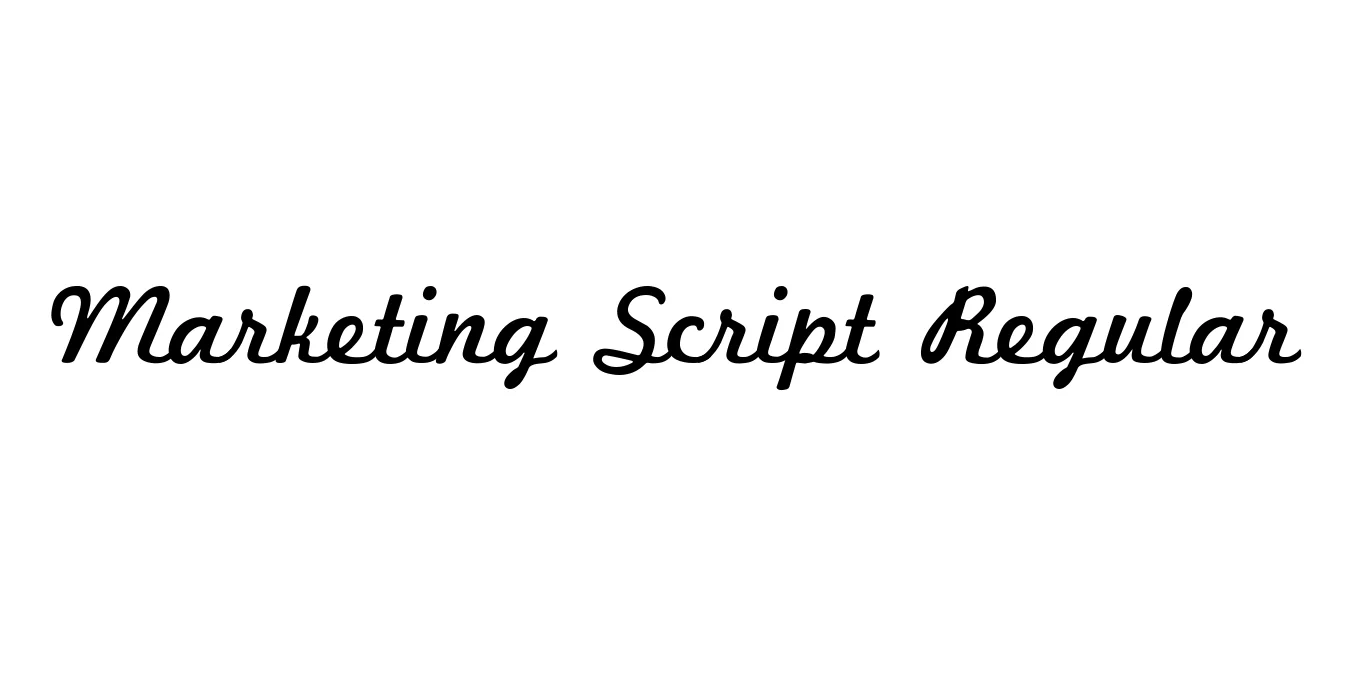
Marketing Script Regular
Designed by Dieter Steffmann
Marketing Script Regular is a classic, fluid script typeface designed by the prolific German typographer Dieter Steffmann. It draws inspiration from mid-20th-century advertising and signage, capturing the elegant, hand-drawn aesthetic that was popular in commercial art during the 1940s and 50s. The typeface features smooth, flowing strokes and a distinctive rhythmic quality that makes it ideal for projects requiring a touch of nostalgia and sophistication.
This font is part of Steffmann's extensive collection of revived and original digital typefaces. It is particularly valued for its balance between legibility and decorative flair. It bridges the gap between formal calligraphy and informal brush lettering, making it a versatile choice for designers looking to evoke a sense of heritage and professional craftsmanship in modern digital and print media.
Marketing Script Regular Best Uses
Creating vintage-inspired brand identities and emblems.
Crafting elegant post headers and motivational quotes for platforms like Instagram.
Ideal for wedding invitations, restaurant menus, and greeting cards.
Perfect for headlines in retro-themed marketing campaigns and packaging.